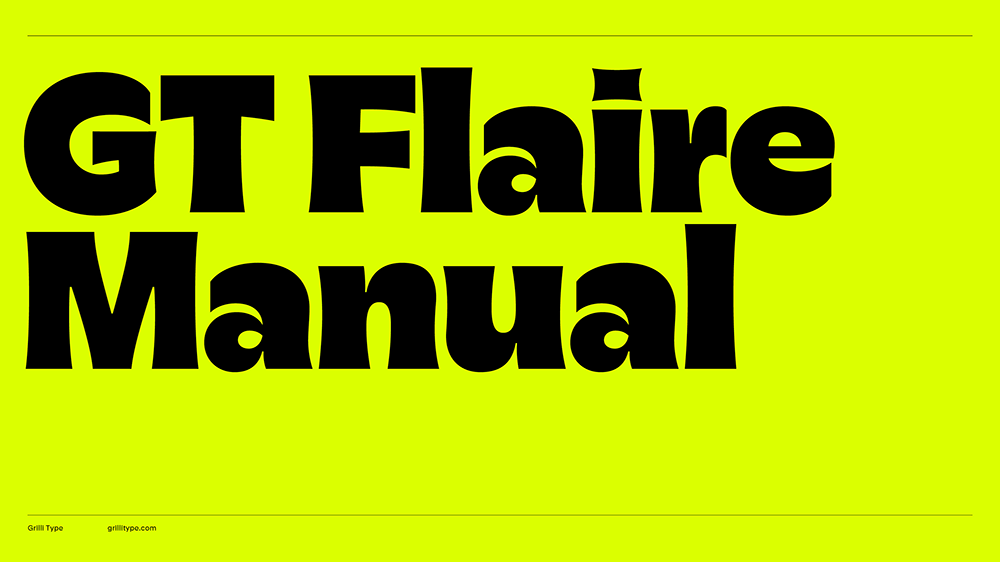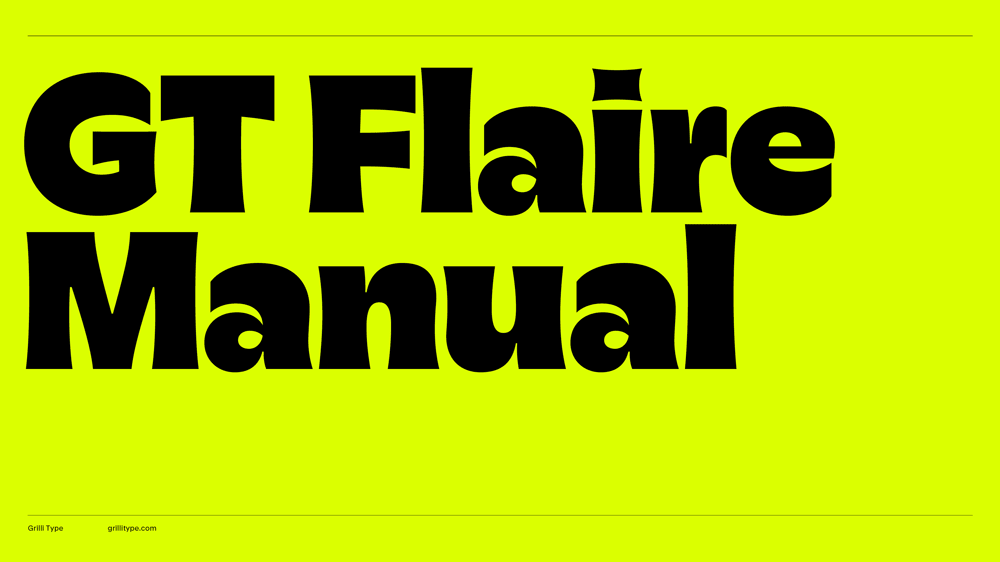
GT Flaire
GT Flaire captures the pronounced curves created by calligraphic pens when applying ink to paper under pressure and translates this characteristic into a digital format. This typeface bridges the worlds of business and pleasure, breaking free from corporate rigidity by combining seriousness with playfulness and encouraging users to embrace both.
- SS01
- Alternates
Pleasure Estimate
- SS02
- Framed Letters
(HAVING?) [FUN!] (123)
- SS03
- Framed Letters Small
(ENJOY) ]LIFE[ )456(